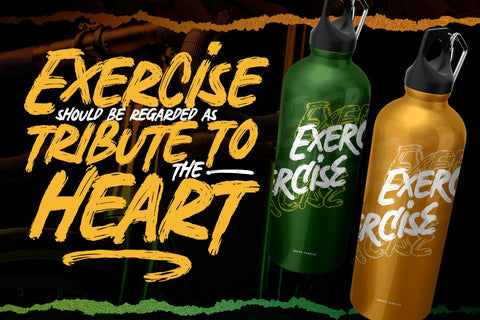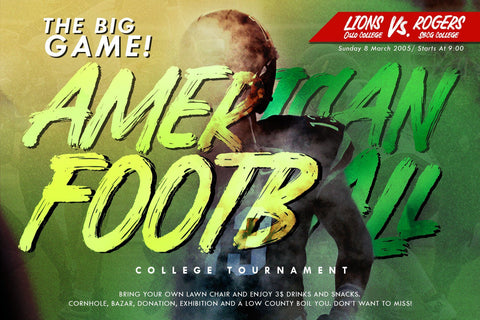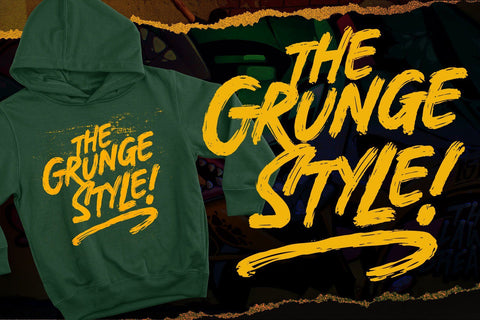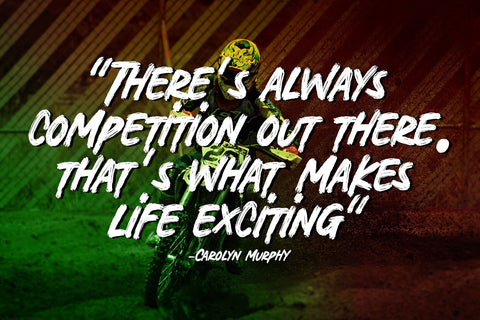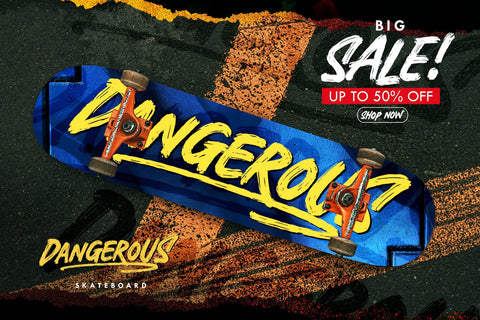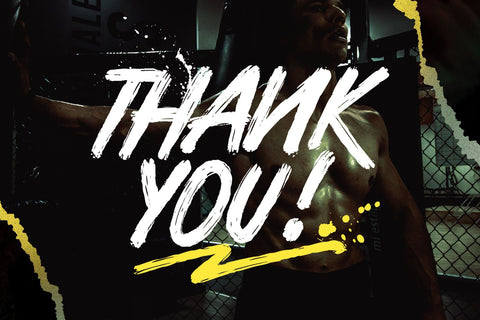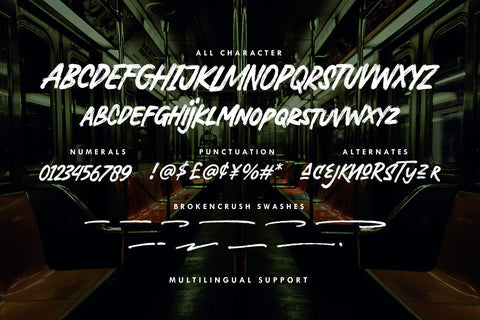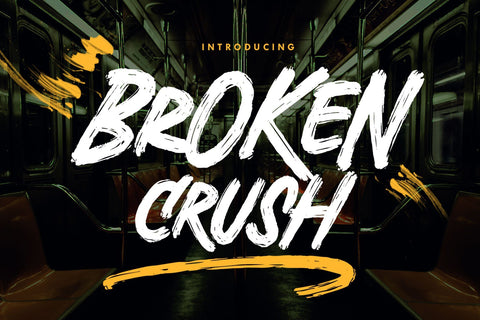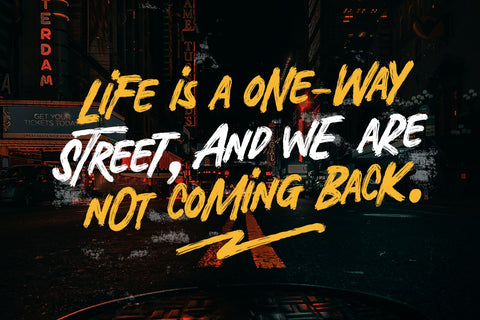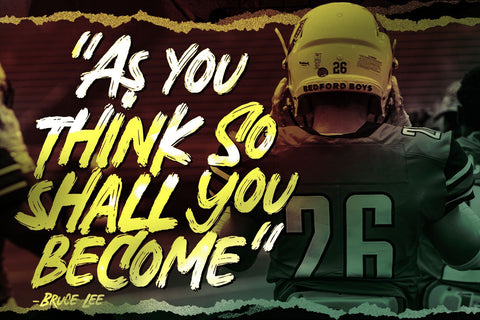
Broken Crush - Brush Font
Broken Crush is a rough brush font, made created with an express brush line, keeping the details and give an eye-catchy combination between the uppercase and small caps, also complete with alternates and swashes!
Broken Crush is pretty good for display with sporty, vibrant, and youth taste! Good choice to use this font for Logo, Merchandise, Brand imagery, Apparel, Packaging, Simple quotes, and many more!
- All-caps font
- Detailed brush font
- Multilingual support